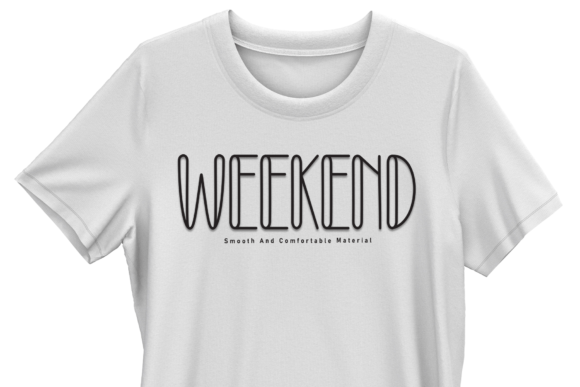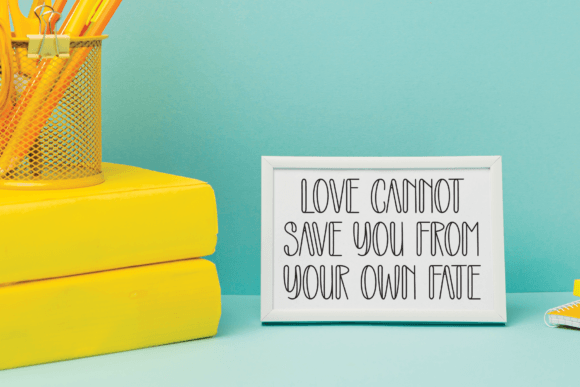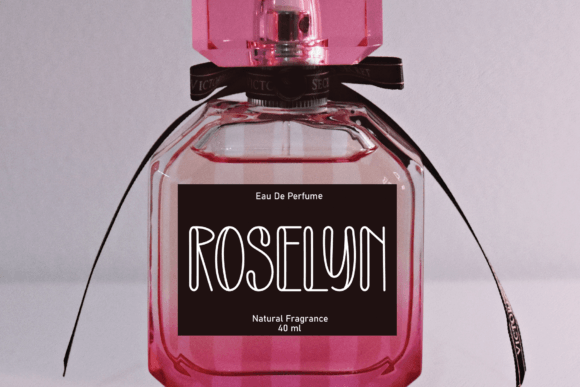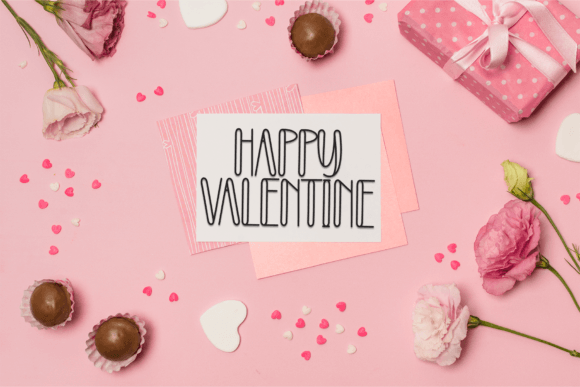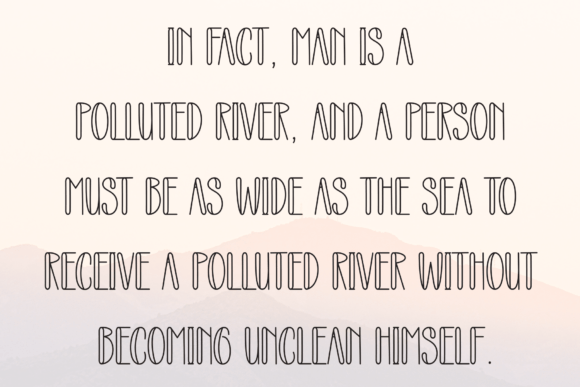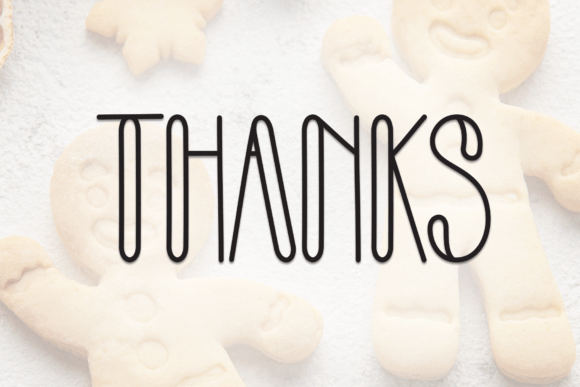
Ginger Bread Font: The Sweetest Addition to Your Design Collection
Are you a designer or crafter looking for a font that can add a touch of warmth and personality to your projects? Look no further than the Ginger Bread Font! This sweet and friendly handwritten font is perfect for a wide range of designs, from holiday-themed crafts to everyday branding materials. In this article, we’ll dive into the features and benefits of the Ginger Bread Font, and explore how you can use it to take your designs to the next level.
A Font that’s as Sweet as it is Versatile
Ginger Bread is a sweet and friendly handwritten font that’s perfect for designers and crafters who want to add a personal touch to their projects. Its natural and unique style makes it incredibly fitting to a large pool of designs, from rustic and vintage-inspired projects to modern and playful ones. The only limit is your imagination!
What Makes Ginger Bread Font So Special?
So, what sets the Ginger Bread Font apart from other fonts out there? Here are just a few of its standout features:
- Handwritten charm: The Ginger Bread Font has a beautifully handwritten feel that’s perfect for adding a personal touch to your designs.
- Natural and unique style: The font’s natural and unique style makes it incredibly versatile, and suitable for a wide range of designs and projects.
- Easy to read: Despite its playful and handwritten feel, the Ginger Bread Font is easy to read, making it perfect for use in body text and other applications where legibility is key.
How to Use Ginger Bread Font in Your Designs
So, how can you use the Ginger Bread Font in your designs? Here are just a few ideas to get you started:
- Holiday-themed crafts: The Ginger Bread Font is perfect for holiday-themed crafts, such as Christmas cards, Halloween decorations, and Easter eggs.
- Branding materials: The font’s friendly and approachable feel makes it perfect for use in branding materials, such as logos, business cards, and letterheads.
- Social media graphics: The Ginger Bread Font is also great for use in social media graphics, such as Facebook posts, Instagram stories, and Pinterest pins.
- Stationery and invitations: The font’s elegant and refined feel makes it perfect for use in stationery and invitations, such as wedding invitations, birthday cards, and thank-you notes.
Tips and Tricks for Getting the Most Out of Ginger Bread Font
Here are just a few tips and tricks for getting the most out of the Ginger Bread Font:
- Experiment with different colors: The Ginger Bread Font looks great in a wide range of colors, from bright and bold to soft and pastel.
- Pair it with other fonts: The Ginger Bread Font pairs well with a wide range of other fonts, from serif and sans serif fonts to script and decorative fonts.
- Use it in combination with images: The Ginger Bread Font looks great in combination with images, such as illustrations, photographs, and graphics.
In conclusion, the Ginger Bread Font is a sweet and friendly handwritten font that’s perfect for designers and crafters who want to add a personal touch to their projects. Its natural and unique style makes it incredibly versatile, and suitable for a wide range of designs and projects. Whether you’re creating holiday-themed crafts, branding materials, or social media graphics, the Ginger Bread Font is sure to become a favorite in your design collection.